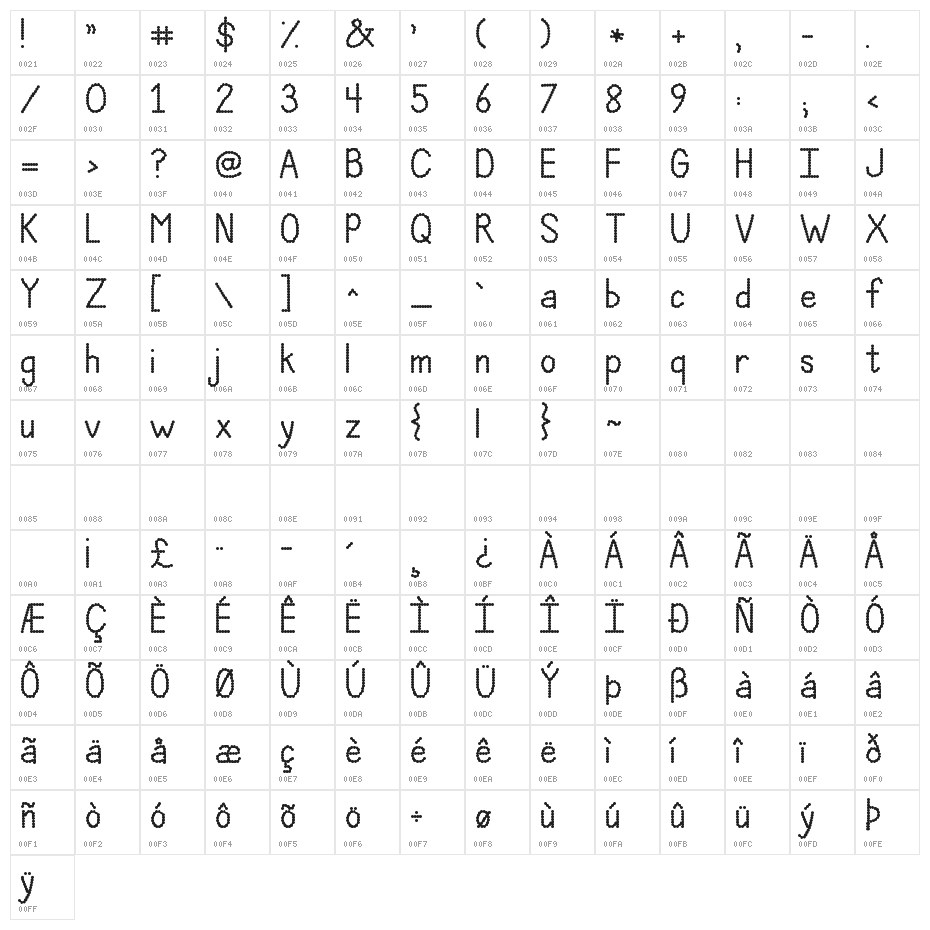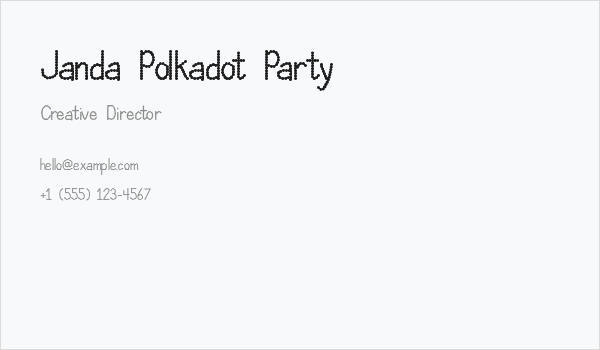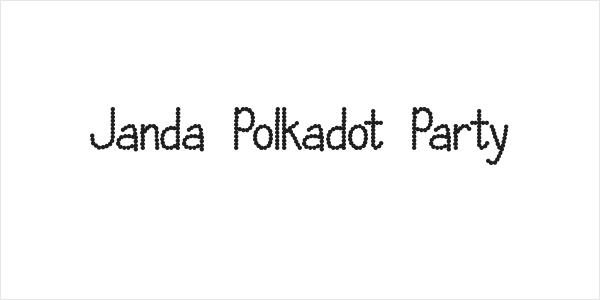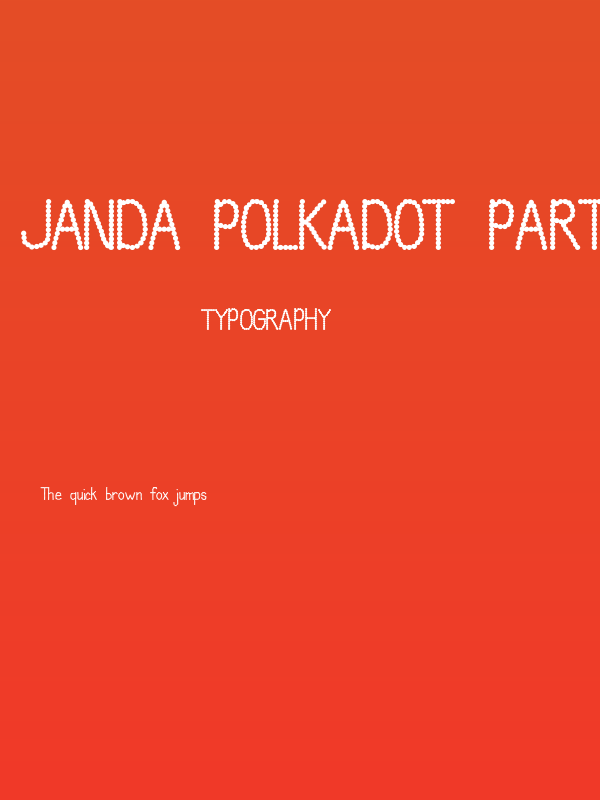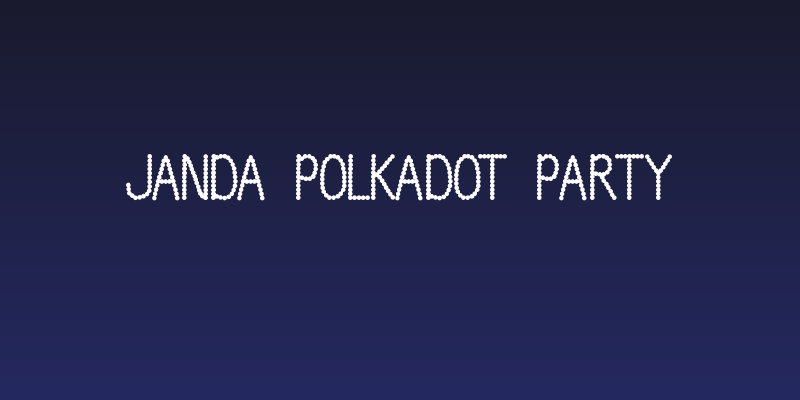
Janda Polkadot Party Font
Janda Polkadot Party Description
This playful and whimsical font is composed of small, evenly spaced dots that form each character, creating a lively and fun appearance. The font maintains a consistent structure across uppercase, lowercase, numbers, and special characters, giving it a cohesive look. The dotted design adds a unique texture and visual interest, making it stand out in any design project. The spacing between the dots is uniform, ensuring readability while maintaining its decorative style. This font is perfect for projects that require a touch of creativity and playfulness, such as children's books, party invitations, or playful branding materials.
| Proposed Projects | Ideal for children's books, party invitations, playful branding, and creative designs. |